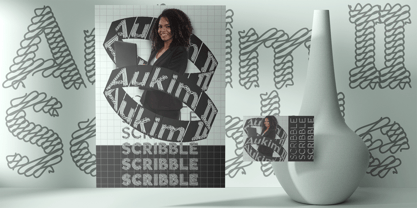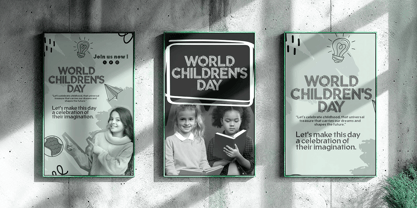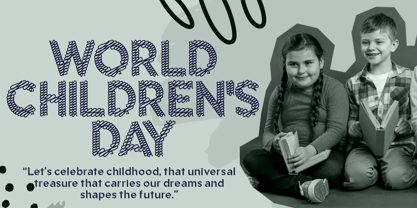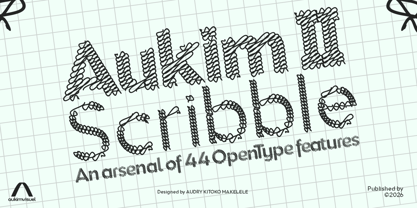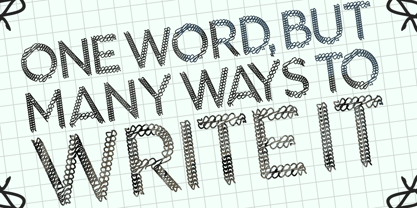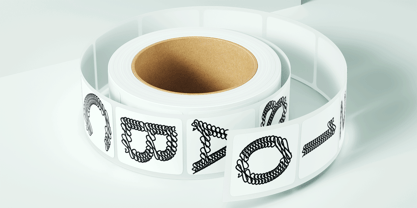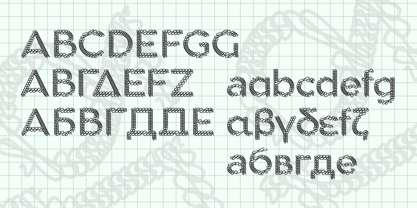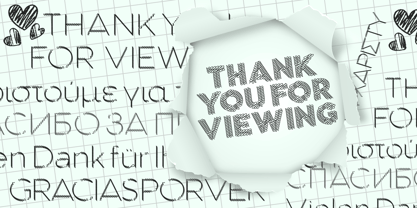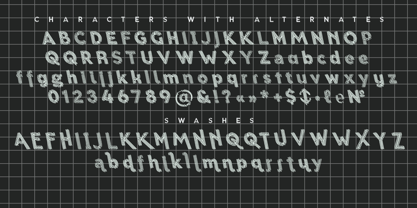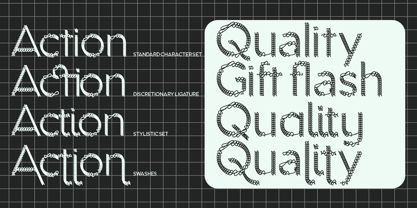
Aukim II Scribble
Aukim II Scribble is an experimental variation on the Aukim II family, which translates the geometric and humanist precision of the original version into a freer, more expressive style. Inspired by handwritten strokes and spontaneous sketches, this variant retains Aukim II’s solid typographic structure while introducing graphic irregularities that evoke the creative process. It positions itself as a hybrid typeface, halfway between professional precision and the raw energy of drawing.
Visually, Aukim II Scribble stands out with its deliberately unstable contours, slightly wavy lines, and terminals reminiscent of pencil or marker strokes. This aesthetic gives the typeface a handcrafted and organic quality, while remaining legible and functional. It adds a touch of authenticity and approachability, making it ideal for projects that seek to humanize visual communication.
Technically, Aukim II Scribble benefits from the same robust foundations as the main family: extensive language support, optimization for screen and print, and compatibility with OpenType features. The kerning and hinting settings have been adjusted to maintain consistency despite the font’s intentional irregularities. This combination allows the font to be used in both creative contexts and demanding professional environments.
Finally, Aukim II Scribble is particularly well-suited for editorial applications, artistic campaigns, and visual identities that aim to convey a freer, more expressive tone. It embodies the idea that typography can be both a communication tool and a vehicle for emotion, giving brands and institutions the opportunity to stand out with a typeface that reflects the human touch.